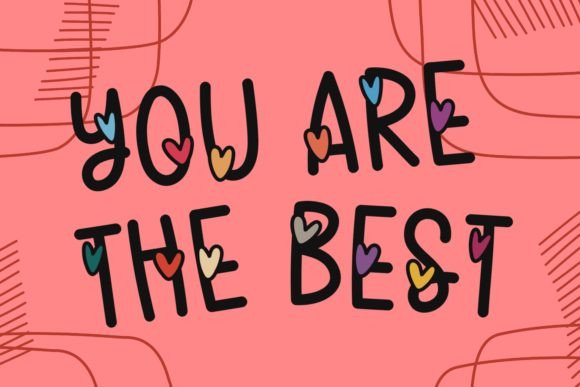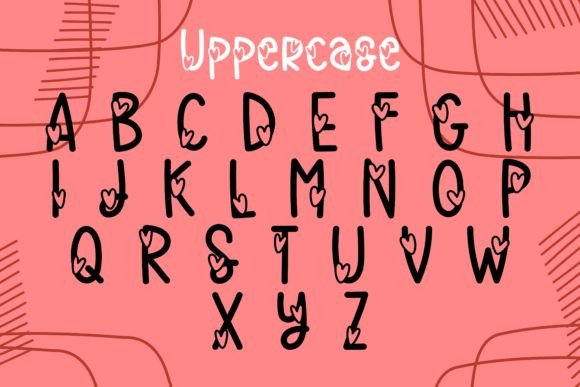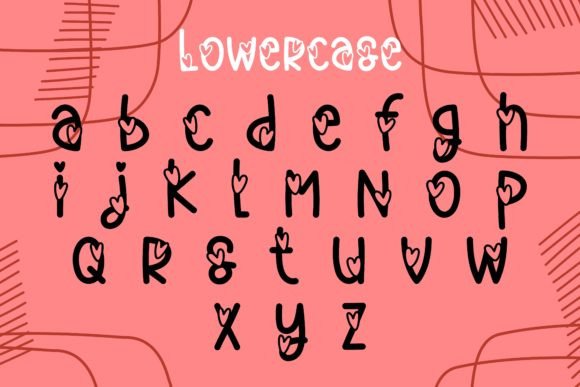
Introduction to Mini Hearts Font
Do you remember that moment when you’re working on a creative project, and you’re stuck on finding the perfect font to bring your design to life? You scroll through design resources, browsing through various options, but none seem to capture the essence of your vision. That’s when you stumble upon the Mini Hearts Font – a delightful, handwritten decorative font that instantly adds a touch of warmth and friendliness to your design.
As a designer, you’re always on the lookout for high-quality fonts that can elevate your projects. The Mini Hearts Font is an excellent addition to any design arsenal, offering a unique and playful aesthetic that’s perfect for crafting unique titles, letterheads, and stationery. With its transparent background, you can easily layer it over other design elements, creating a visually appealing and eye-catching composition.
Key Features of Mini Hearts Font
- High-quality design resource ideal for creative projects, including wedding invitations, greeting cards, and social media graphics.
- Features a transparent background, allowing for easy integration with any design element or background image.
- Mini Hearts Font is available in a range of sizes, from 8pt to 72pt, catering to various design requirements.
- Designed with a high resolution of 300 DPI, ensuring crisp and clear text display, even at larger sizes.
- Unique, hand-drawn style with intricate details and a playful touch, perfect for adding a personal touch to any design project.
Honest Review: Mini Hearts Font
I recently had the chance to work with the Mini Hearts Font for a creative project, and I must say it was a great experience. As a designer, I’m always on the lookout for high-quality design resources that can elevate my work.
The Mini Hearts Font is a delightful addition to any design project. It’s perfect for Valentine’s Day, weddings, or any other occasion that calls for a touch of sweetness. The font is easy to use and comes in a variety of styles, making it versatile for different creative needs.
- ✨ High-quality design with a transparent background, making it easy to use in various design contexts.
- ✨ A wide range of styles to choose from, ensuring that you can find the perfect fit for your creative project.
- ⚠️ Limited character set, which may be a concern for designers who need to typeset longer texts.
- ⚠️ May not be suitable for formal or professional projects, as it’s more geared towards playful and whimsical designs.
Overall, the Mini Hearts Font is a fantastic addition to any designer’s toolkit. While it may have some limitations, its charm and versatility make it a great choice for creative projects that require a touch of personality.
Common Use Cases for Mini Hearts Font
The Mini Hearts Font is perfect for Valentine’s Day designs, wedding invitations, and other romantic projects. You can also use it to add a playful touch to birthday cards, party invitations, and other celebratory designs.
Q: Is the Mini Hearts Font high quality?
Yes, the Mini Hearts Font is designed to be a high-quality design resource. It features clear, crisp lines and a consistent weight, making it perfect for a variety of design projects, from print materials to digital displays.